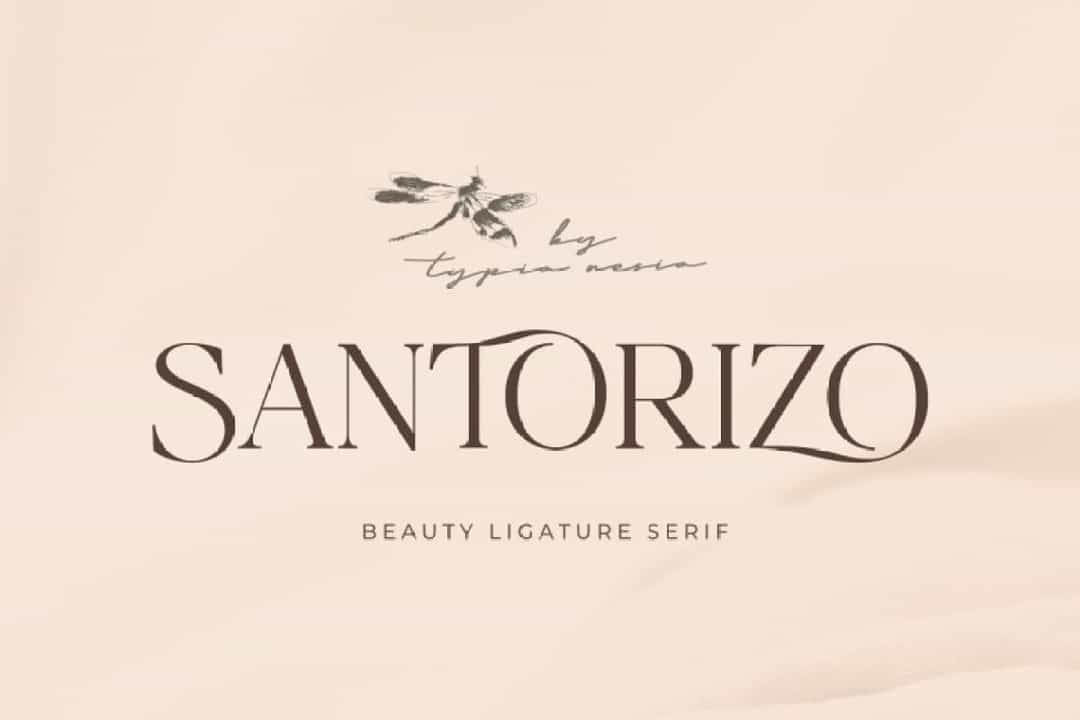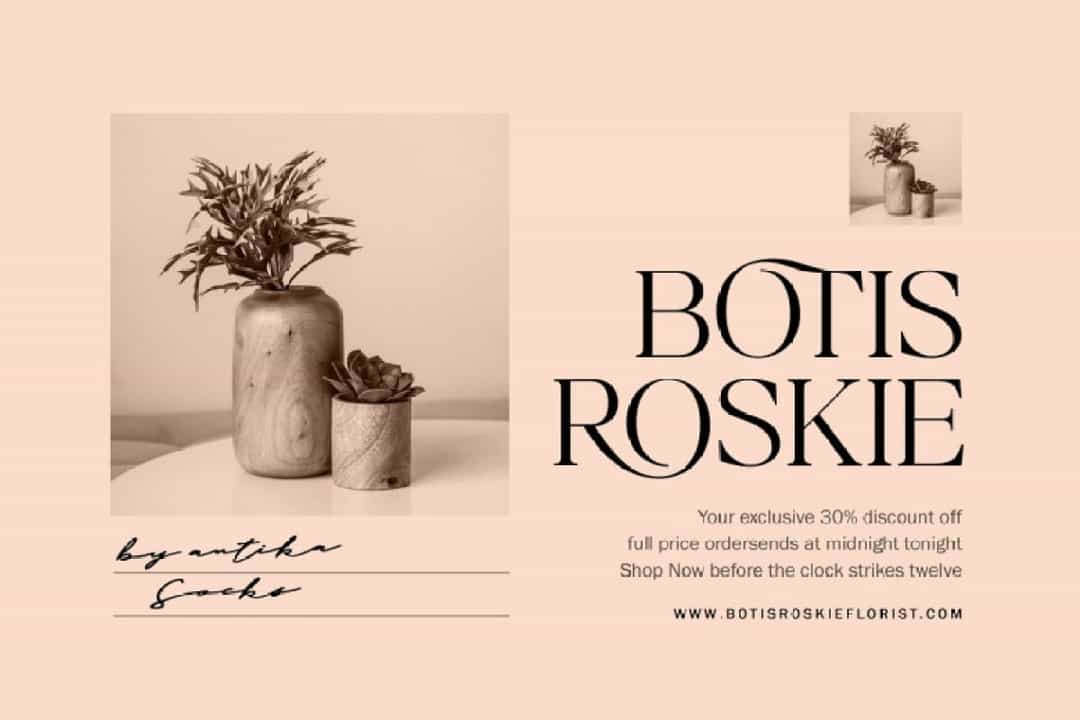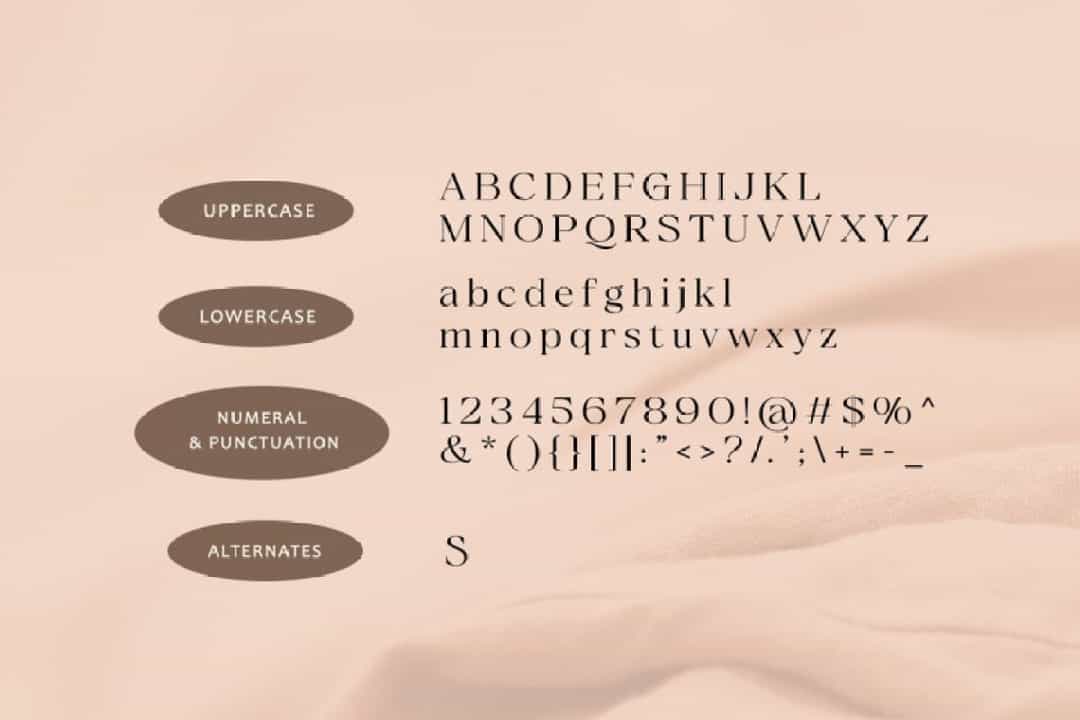
Discover Santorizo Font, part of the Serif collection—a versatile and unique font perfect for adding a personal touch to your projects. Download it for free and enjoy crafting designs with style, from invitations to social media posts. This font is available exclusively for personal use, giving you the freedom to create without limits. Unlock your creativity with Santorizo Font today!
Santorizo is an incredible beauty ligature serif font that will add sophistication and creativity to your designs. Perfect for invitations, books, magazines logos logos logos invitations this font offers many uses in design projects including invitations logos invitations etc.